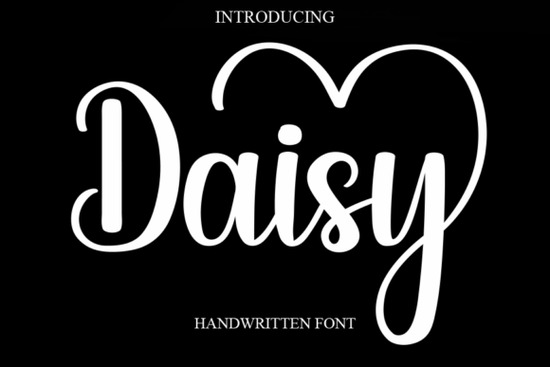
If you're looking for a sweet, handwritten font that feels both casual and elegant, Daisy is worth a closer look. It's a cursive typeface with gentle curves and a romantic personality. Whether you design for clients, sell printables, or run a small business, finding the right script font can make or break a layout and Daisy keeps things approachable without losing style.
What does the Daisy font look like?
Daisy has a flowing, cursive style with soft, rounded letterforms. Each character connects smoothly, giving text a natural handwritten feel. It's not overly formal there's a warmth and lightness to it that makes designs feel personal rather than stiff.
The font typically includes:
- Uppercase and lowercase letters with smooth connections
- Numbers and common punctuation
- Stylistic alternates for added variety
Because of its sweet and romantic tone, Daisy fits naturally into designs where you want a friendly, feminine, or whimsical look.
What projects work well with a cursive handwritten font like this?
This type of font shines in projects where personality matters more than formality. Here are some common uses:
- Wedding invitations and save-the-dates the romantic style pairs beautifully with floral and soft-toned layouts
- Greeting cards birthday cards, thank-you notes, and holiday cards all benefit from a warm, handwritten touch
- Branding and logos especially for boutiques, florists, bakeries, and lifestyle brands
- Social media graphics quotes, announcements, and promotional posts
- Fashion lookbooks and marketing materials adds a stylish yet relaxed feel
- Print-on-demand products mugs, tote bags, T-shirts, and wall art
If you create colorful designs for POD or crafting projects, Daisy gives you a versatile base that works with many different color palettes and backgrounds.
How does Daisy compare to other script fonts?
There are plenty of cursive and script fonts available, so how does Daisy stack up against similar options?
Compared to the Softly Written Font, which leans into a more delicate brush calligraphy style, Daisy feels a bit more playful and lighthearted. Softly Written works well for minimalist or modern calligraphy layouts, while Daisy brings more warmth to the page.
If you prefer something with a more refined script look, Francy Tiguan Font offers an elegant alternative with a different personality more polished and structured, which may suit formal branding or luxury-style layouts better.
For wedding-specific projects, August Wedding Font is designed with invitation suites and romantic stationery specifically in mind. It shares some of Daisy's romantic quality but carries a slightly more formal rhythm.
Daisy sits comfortably in the middle sweet enough for romantic designs, casual enough for everyday creative work.
How do you pair Daisy with other fonts?
Pairing a script font with the right complementary typeface keeps your designs balanced and readable. Here are a few practical tips:
- Pair with a clean sans-serif fonts like Montserrat, Poppins, or Raleway create a modern contrast that keeps body text easy to read
- Use a light serif for elegant layouts something like Playfair Display complements Daisy's romantic feel without competing for attention
- Limit script usage to headlines or accents use Daisy for titles, names, or short phrases rather than long paragraphs
- Adjust letter spacing when needed handwritten fonts can feel crowded at smaller sizes, so increase tracking for readability
A simple rule: use Daisy where you want the eye to land first, and let a cleaner font handle the supporting text.
Before you use Daisy in your next project
- Check the license confirm your use case (commercial POD, client work, or personal) is covered
- Test at the right size cursive fonts often need size adjustments to stay readable on smaller items
- Pair thoughtfully combine with a clean sans-serif or solid serif for good contrast
- Explore alternates if Daisy includes stylistic alternates, try swapping them in to add variety
- Preview on mockups see how the font actually looks on real products before finalizing
With its gentle curves and romantic character, Daisy is a solid pick for anyone who wants their designs to feel warm, personal, and a little bit fancy without being overdone. Try it on your next card design, branding project, or POD listing and see how it fits your style.